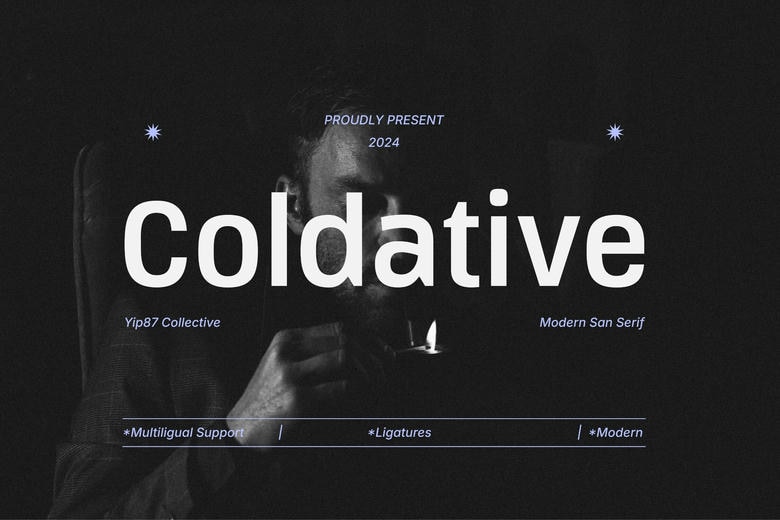
Coldative Font
Coldative is a sans-serif typeface that has a strongly pronounced ‘geometric’ personality. Regardless of the kind of project, design or content, this font will definitely complement any collection of fonts as it would be useful to improve any creation.
Coldative Sans Serif Font